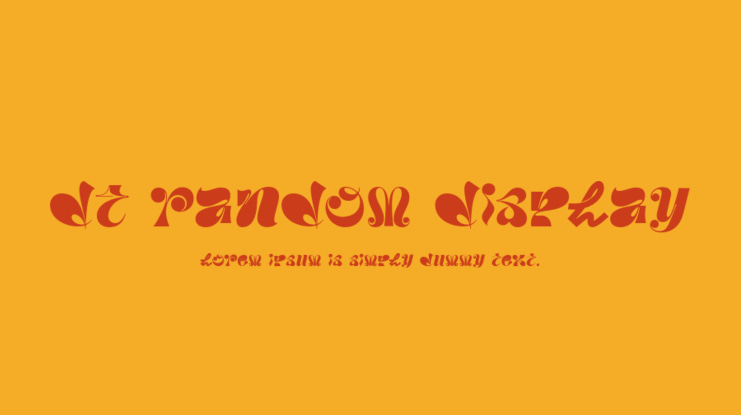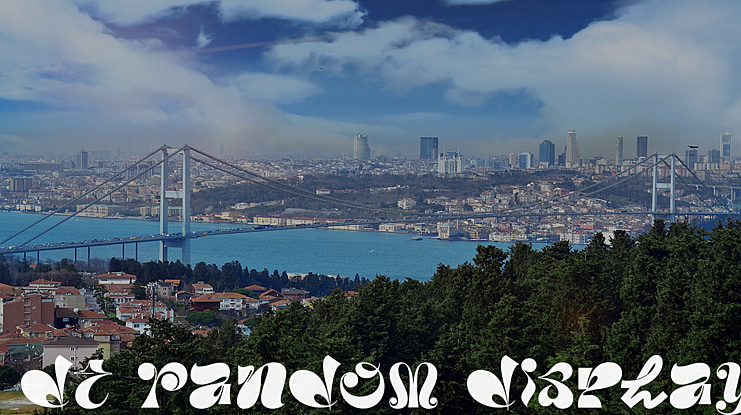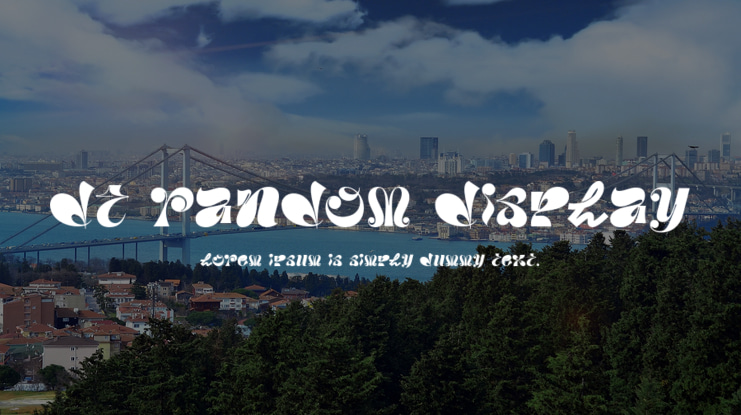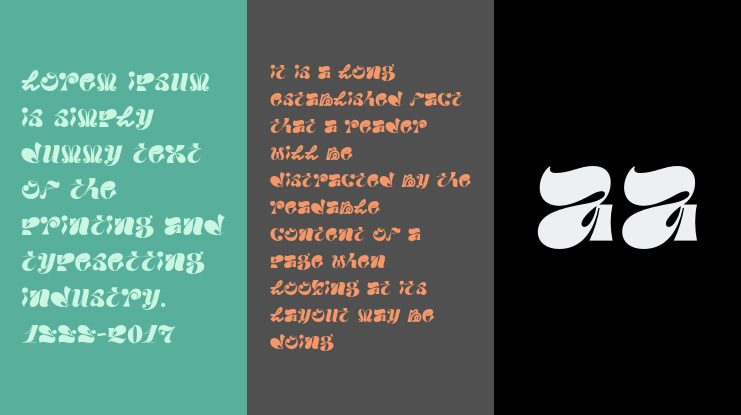
DT Random Display Font
Duong Tran
This is a vintage font that was born in modern times as a display font. It’s designed and shared by sartstudio. The concept is inspired by the smoothness flow and uses ink traps to add highlights and uniqueness to the types. The typeface only has 36 main characters (uppercase and lowercase are the same) and a few additional marks. For applications, it is suitable for headlines and packaging.